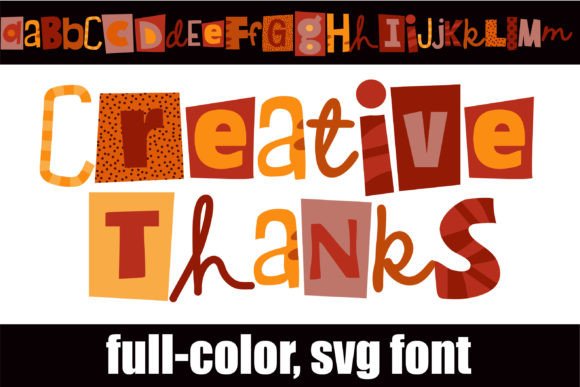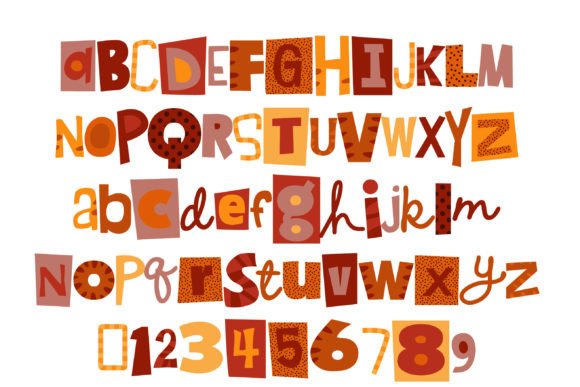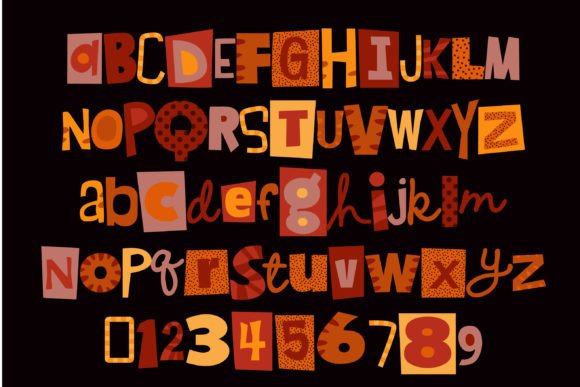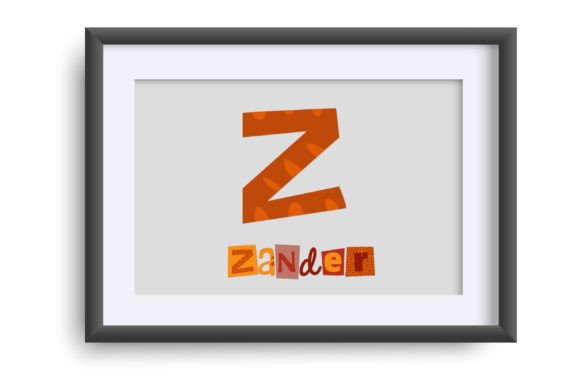
About Creative Thanks Font
Introducing Creative Thanks, a delightful full-color font that celebrates the spirit of Thanksgiving with its vibrant and creative lettering. With a Thanksgiving-inspired color palette and unique design, this font is the perfect addition to your crafty ideas and will surely bring a festive touch to your projects.
Creative Thanks offers a wide range of colors and variations for each letter, allowing you to create eye-catching designs that reflect the warmth and joy of the Thanksgiving season. The alt case provides even more possibilities, as each letter is presented in different colors, adding an extra level of creativity and versatility to your designs.
Whether you’re creating Thanksgiving-themed greeting cards, invitations, decorations, or any other crafty project, Creative Thanks will make your designs truly stand out. The full-color font allows you to infuse your creations with the rich hues of autumn, creating a visually appealing and engaging experience for your audience.
Embrace the Thanksgiving spirit and let Creative Thanks inspire your crafty ideas. Whether you’re expressing gratitude, organizing a Thanksgiving event, or simply celebrating the season, this full-color font will add a unique and memorable touch to your creations. Enjoy the results and let your creativity flourish with Creative Thanks!